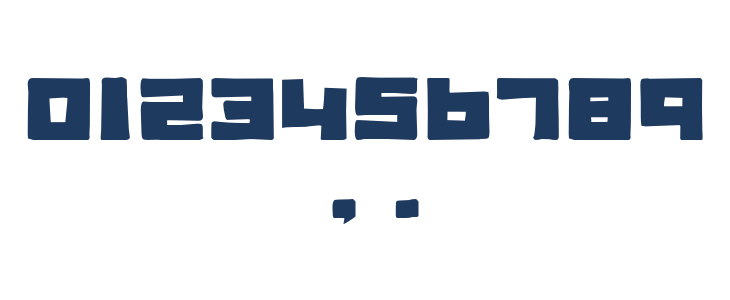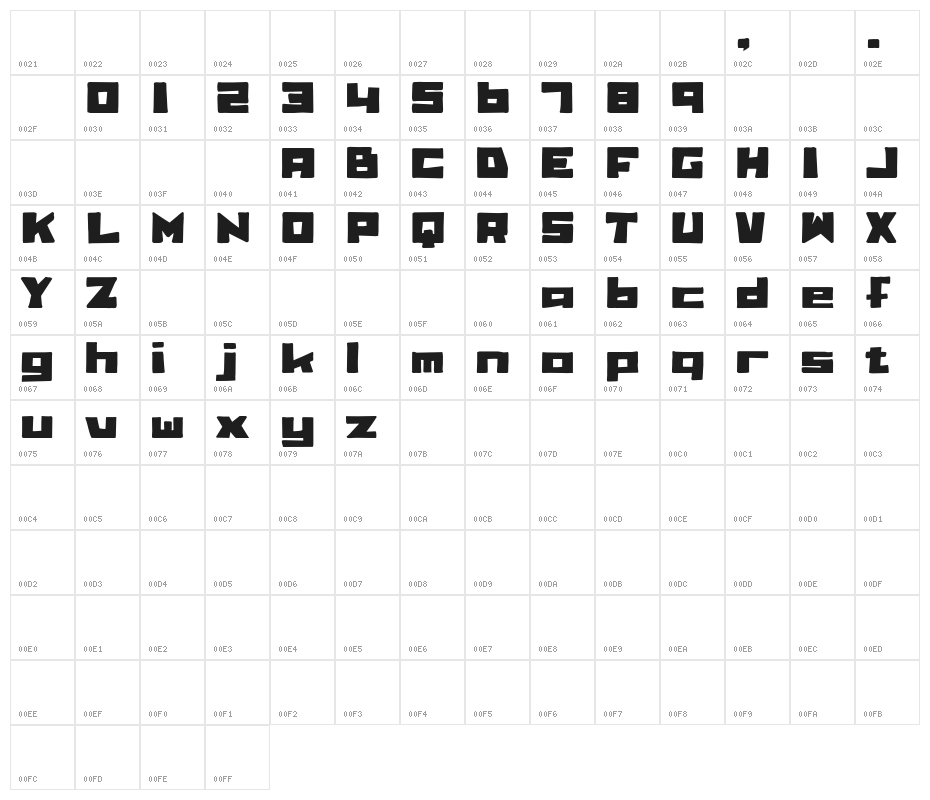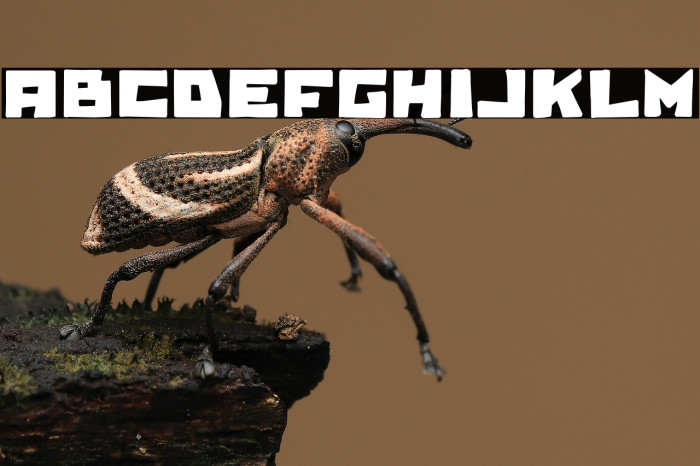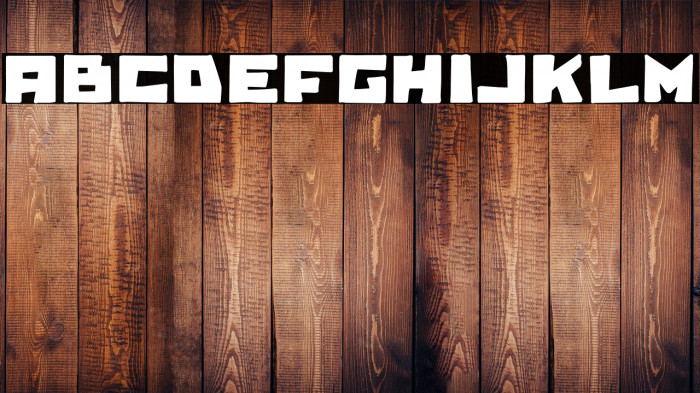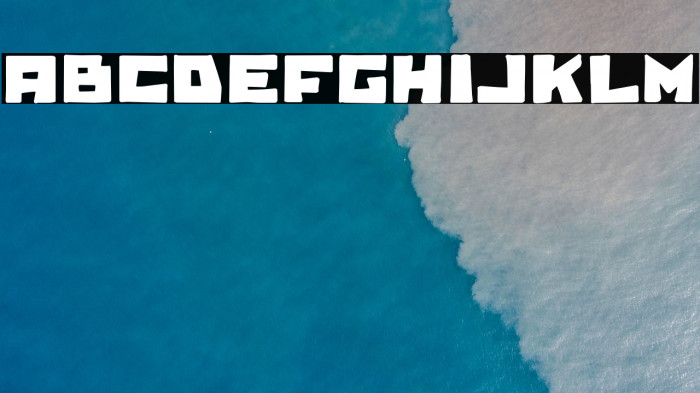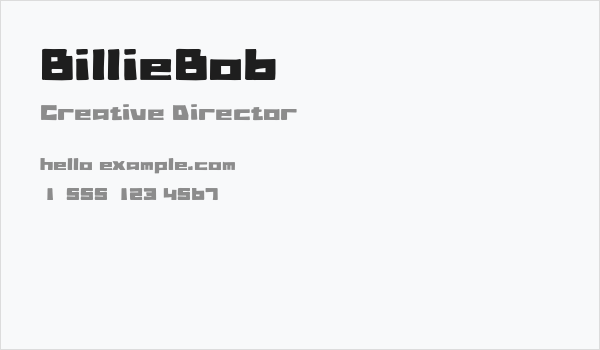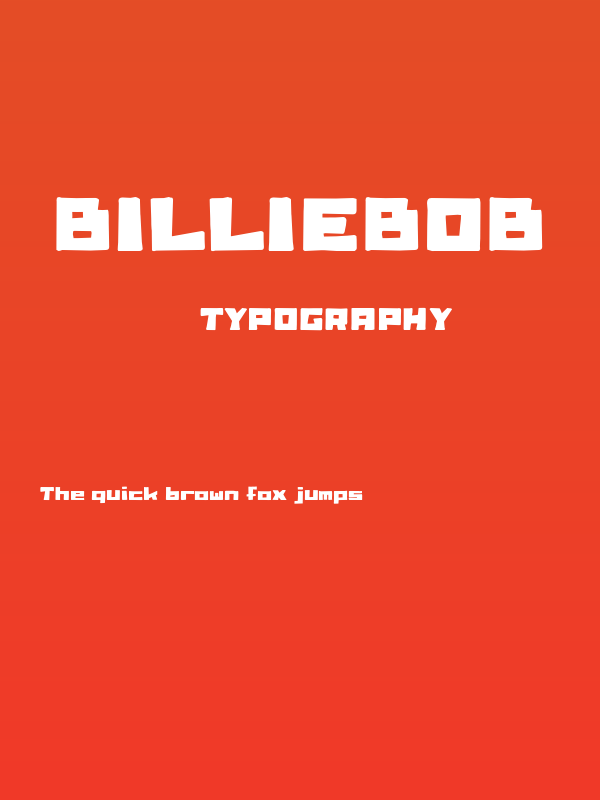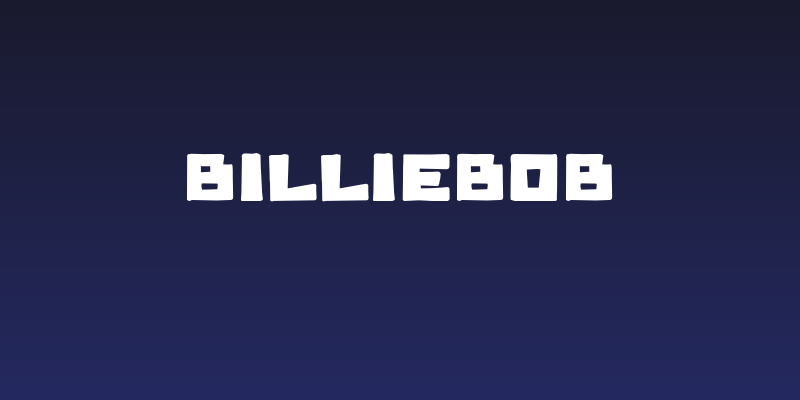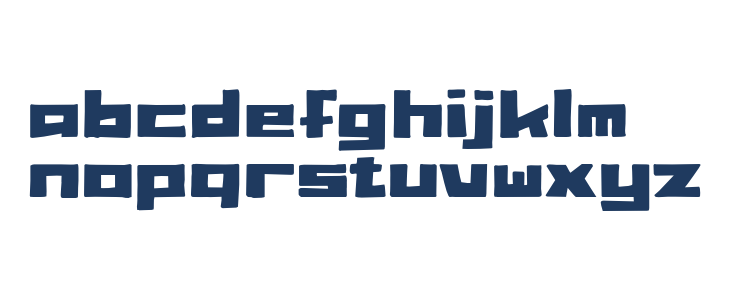
BillieBob Font
BillieBob Description
This font features a bold and playful design with a distinctly irregular and chunky appearance. The characters have a hand-drawn quality, with uneven edges and varying stroke widths that give it a dynamic and energetic feel. The uppercase and lowercase letters maintain a consistent style, while the numbers and special characters complement the overall aesthetic. This font's unique style makes it stand out, ideal for projects that require a fun and informal touch.
| Overall Style | Playful, Energetic, Hand-drawn |
| Use Case | Headlines, Posters, Branding |
| Proposed Projects | Perfect for children's books, comic strips, playful branding, and event posters. |